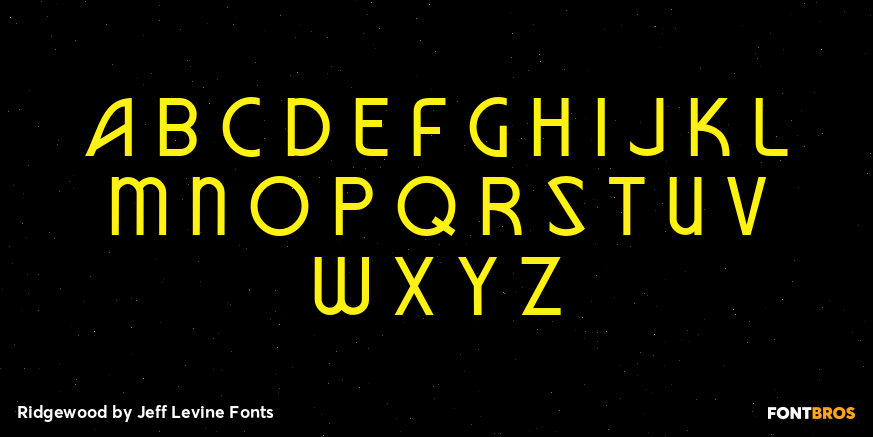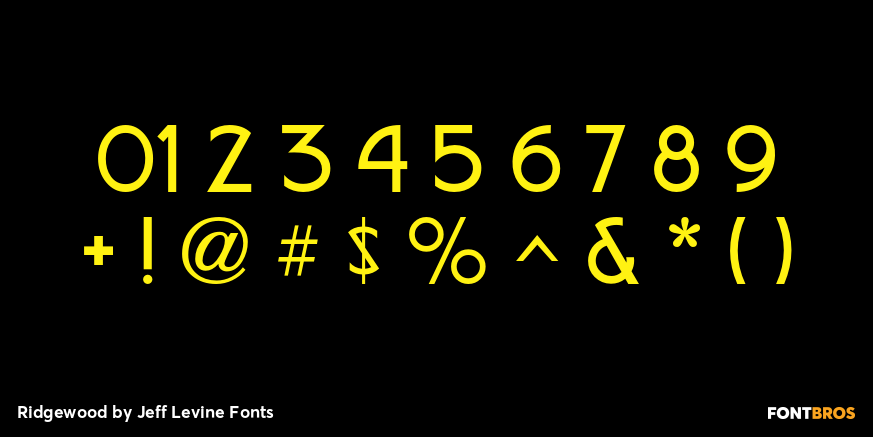
Ridgewood
While watching a movie filmed on location in New York, one scene stood out with a classic neon sign for a neighborhood restaurant. Ridgewood JNL is based on the lettering from that sign, and emulates many of the Art Deco elements that was so unique to sign work of the day.